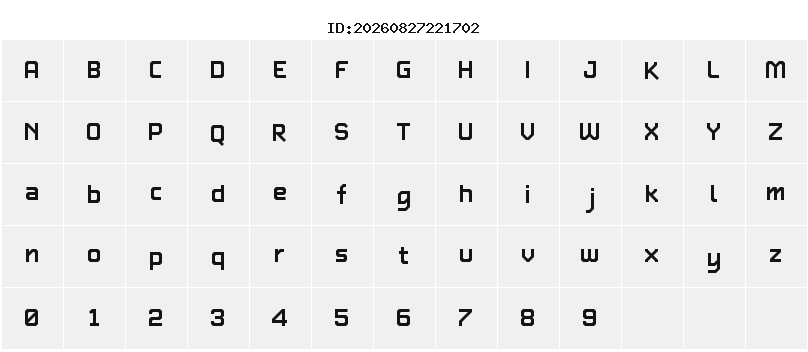
• Font Name: TypeTwo
• Designer: nirmalbiswas
• Description: “TypeTwo” was built with FontStruct “TypeTwo” is based on “TypeOne” by “nirmalbiswas” (http://fontstruct.com/fontstructors/nirmalbiswas)
About TypeTwo.ttf
TypeTwo.ttf is a modern, elegant sans-serif font designed for ultimate readability and visual harmony. Perfect for branding, headlines, web design, and print materials.